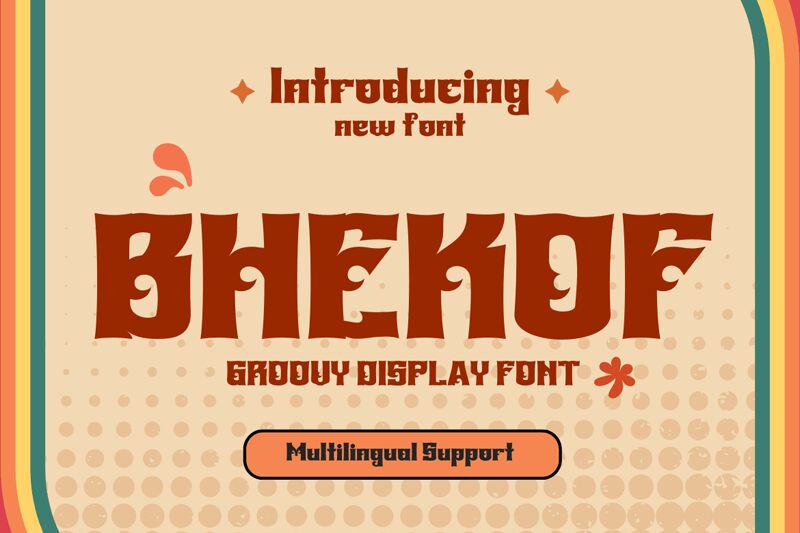
BHEKOF-Regular
Dive into the vibrant world of Bhekof, a bold display font crafted by the innovative minds at Twinletter. With its groovy style and robust weight, Bhekof is not just a typeface-it's a statement. Its distinct flair is reminiscent of various artistic eras fused to forge an unmistakable typographic identity that demands attention.
Ideal for those seeking to inject personality into their creative endeavors, Bhekof's unique blend of vintage charm and modern boldness makes it perfect for branding, poster design, and eye-catching headlines. It's designed to make your project not only popular but unforgettable. Embrace the powerful aesthetic that Bhekof brings to the table and watch as your designs transcend ordinary expression to become works of art that resonate with audacity and flair.